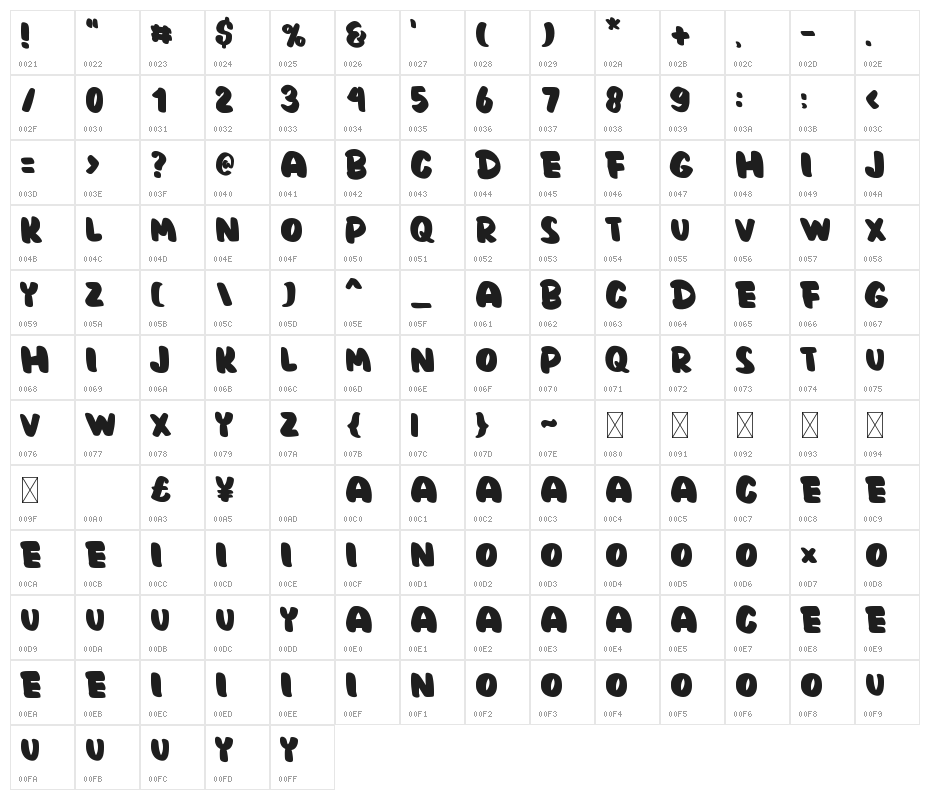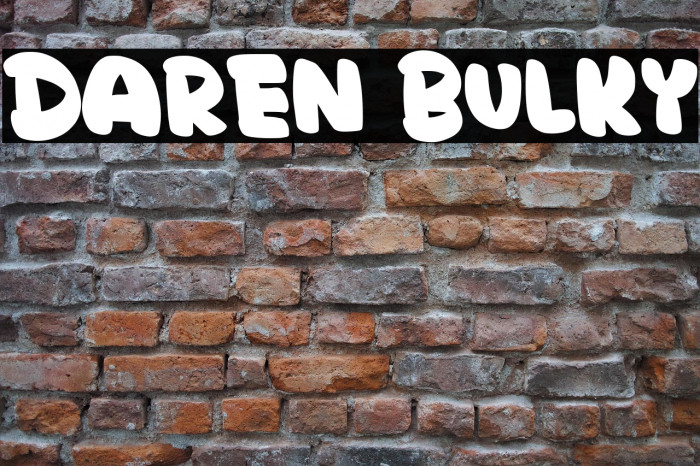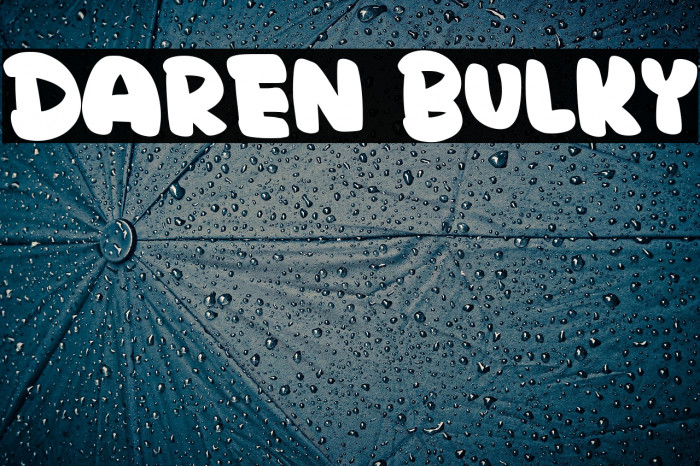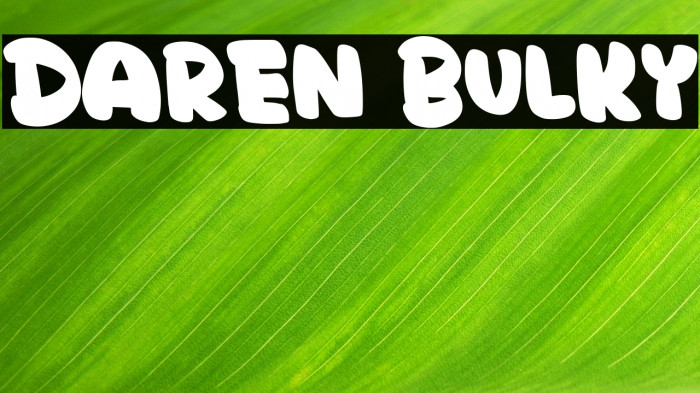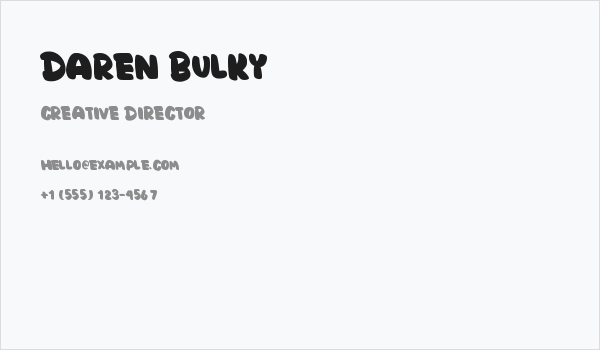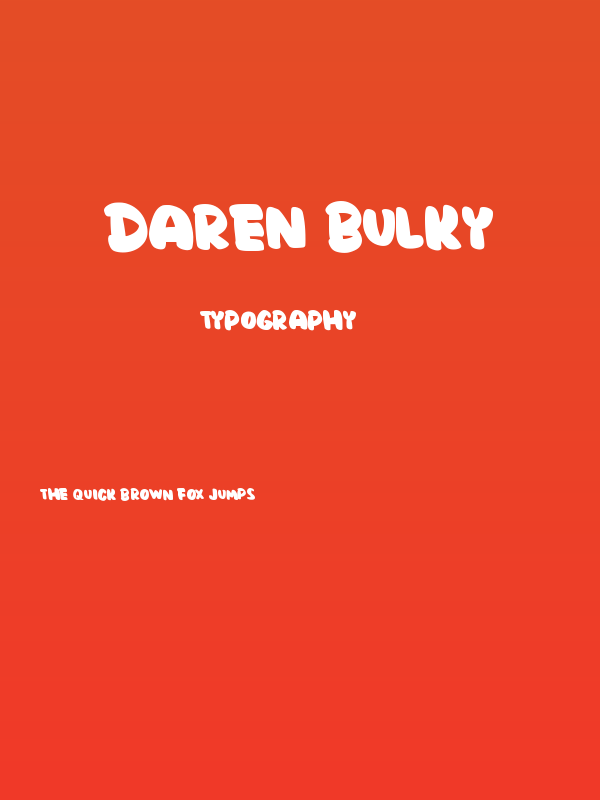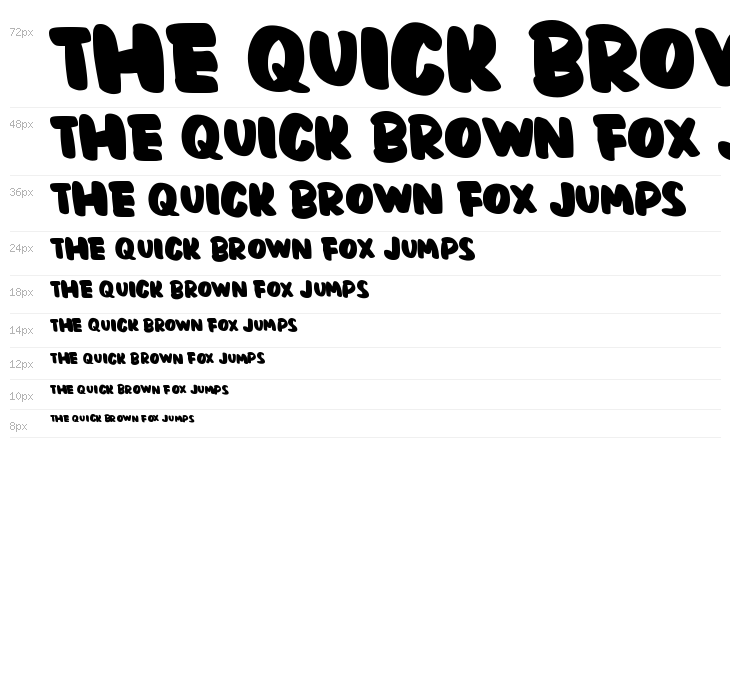
Daren Bulky Font
This font features a bold, playful style with thick, rounded strokes that convey a sense of fun and energy. The characters are uniformly bold, with a slightly irregular shape that adds a whimsical touch. The letters are closely spaced, creating a compact appearance that enhances its playful nature. The numbers and special characters maintain the same bold and rounded aesthetic, ensuring consistency across all elements. This font is ideal for projects that require a lively and engaging visual impact.
| Proposed Projects | Ideal for children's books, playful branding, party invitations, and eye-catching posters. |